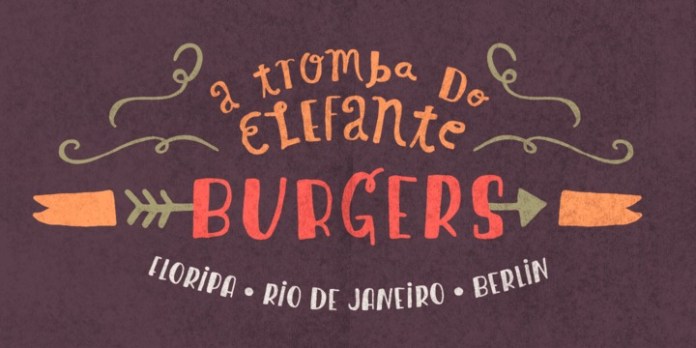
Blueshift Font Family
Blueshift Font Family is a transforming of the traditional gothic typeface style traditionally represented thru designs which encompass ‘change gothic’. The characters of Blueshift had been re-drawn and reformed to better healthy the pixel grid of famous virtual presentations. An expressive disconnected script and an elegant display face that plays collectively devilish well. Upload some unique extras to the mix and voilà blueshift, a hand-drawn circle of relatives with a tremendous modern accessory. Super designs are guaranteed for all!